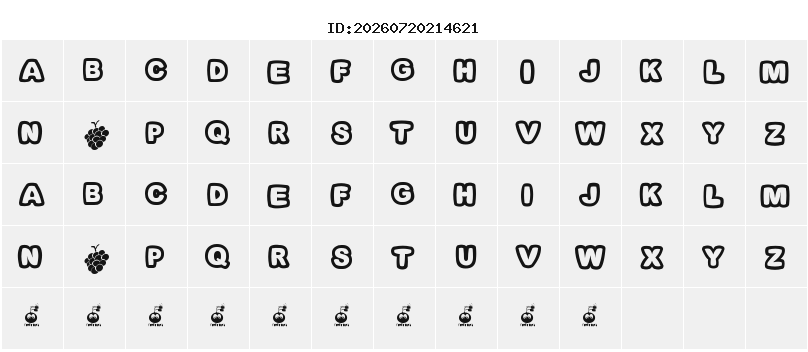
• Font Name: Fonts Bomb I love grapes
• Designer: Fonts Bomb
About Fonts Bomb I love grapes.ttf
Fonts Bomb I love grapes.ttf is a modern, elegant sans-serif font designed for ultimate readability and visual harmony. Perfect for branding, headlines, web design, and print materials.